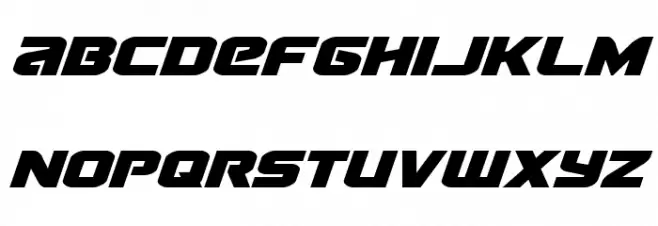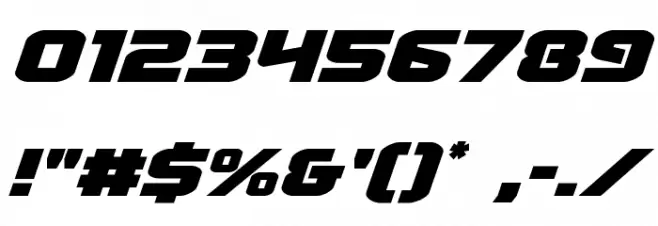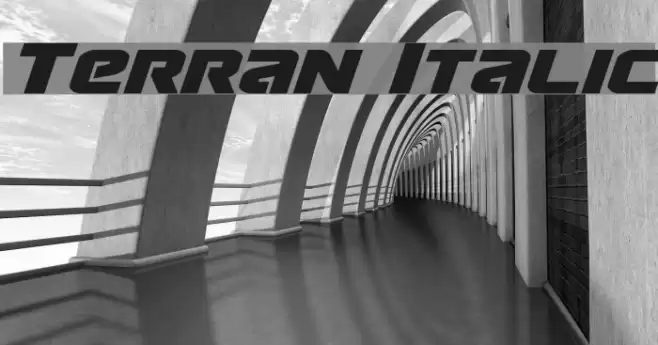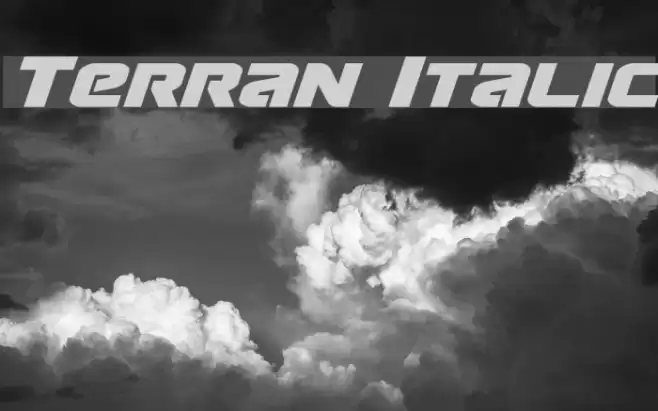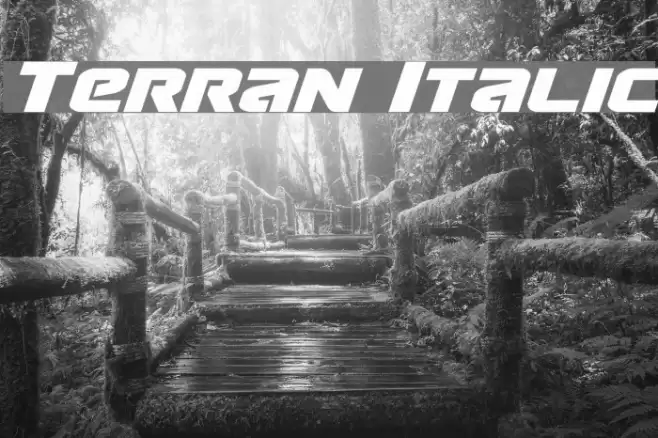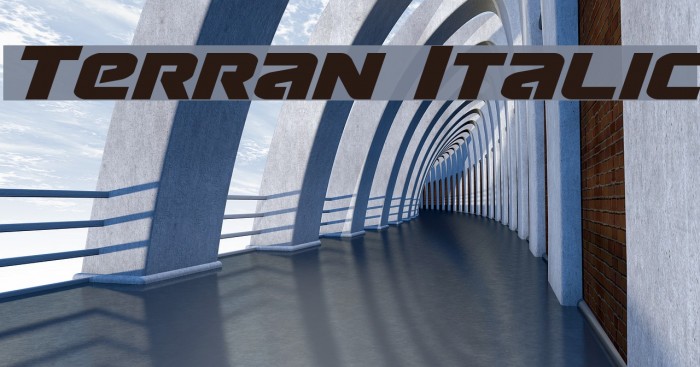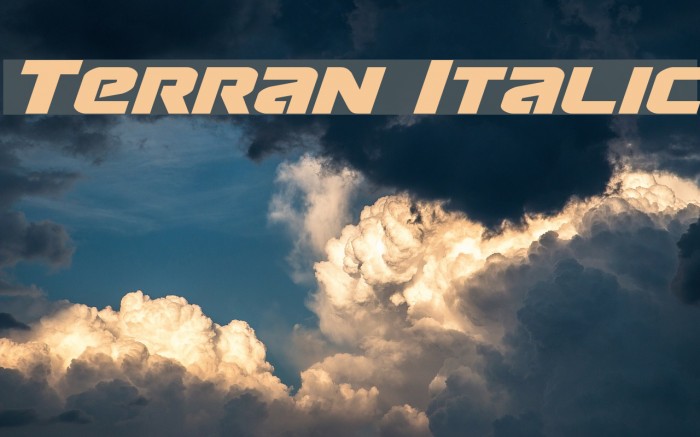
Terran Italic
This font features a bold and dynamic italic style, characterized by its strong geometric shapes and angular lines. The letters are slightly slanted, giving a sense of motion and energy. The uppercase and lowercase characters maintain a consistent style, with sharp edges and a futuristic appearance. The numerals are equally bold, ensuring readability and impact. Special characters are designed to match the overall aesthetic, making this font suitable for modern and tech-oriented designs.
A bold, italic font with a futuristic and dynamic style.
- Proposed Projects: Ideal for technology branding, video game titles, sports team logos, and sci-fi themed projects.